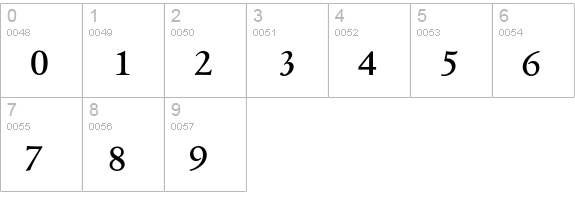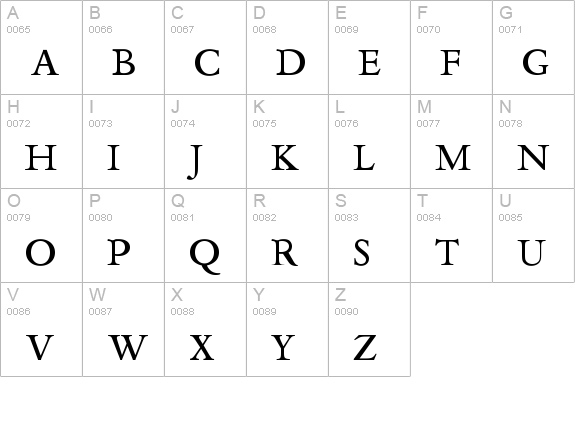
AsdanteMedium Font Details
Introducing AsdanteMedium font - a sleek and elegant typeface that exudes sophistication and style. With its timeless appeal and modern twist, AsdanteMedium is perfect for a wide range of design projects, from branding to editorial design. The balanced letterforms and clean lines of this font make it highly versatile and suitable for both headlines and body text. What makes AsdanteMedium font even more appealing is that it is available for free download at FontsMarket.com. Now you can elevate your designs with this beautiful typeface without breaking the bank. Whether you're a seasoned designer looking for a fresh font to add to your collection or a beginner exploring different typographic options, AsdanteMedium is a must-have in your toolkit. Download it today and start creating stunning visuals that stand out from the crowd.